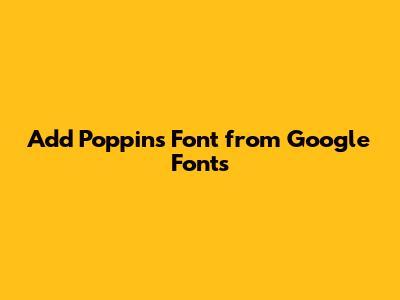
Hey guys! Ever wanted to give your website or design project that extra oomph? Well, using awesome fonts is a super easy way to do just that, and today, we're diving deep into how to import the Poppins font from Google Fonts. Poppins is a fantastic choice – it's clean, modern, and super versatile, making it perfect for everything from body text to big, bold headlines. Seriously, once you start using it, you'll wonder how you ever lived without it. This tutorial is designed to be super straightforward, so even if you're new to web design or just looking for a quick refresher, you'll be able to get Poppins up and running in no time. We'll cover the different ways you can bring this amazing font into your projects, whether you're working with web development, graphic design software, or even document creation. So grab your favorite beverage, get comfy, and let's make your text look absolutely stunning!
Understanding Google Fonts and Poppins
Alright, let's get down to business and talk about Google Fonts and Poppins. Google Fonts is this incredible free resource that offers a massive library of web-friendly fonts. What's so cool about it? Well, for starters, it's free, which is always a win, right? But more importantly, these fonts are optimized for the web, meaning they load quickly and look great across all sorts of devices and browsers. No more worrying about weird font rendering or slow loading times! Poppins itself is a geometric sans-serif typeface designed by the Indian Type Foundry. What makes Poppins stand out is its clean lines, balanced proportions, and friendly yet professional feel. It’s got a great range of weights, from thin and airy to bold and impactful, giving you tons of flexibility. Whether you need elegant headings or readable body text, Poppins has got your back. Its geometric construction gives it a modern and stylish edge, but it remains highly legible, which is crucial. Think about it – you want your audience to be able to read your message clearly, and Poppins absolutely delivers on that front. It’s the kind of font that can elevate your entire design without shouting for attention; it just works. So, when you decide to import the Poppins font from Google Fonts, you're not just adding a font; you're adding a well-crafted, highly functional, and aesthetically pleasing element to your project. It's a smart choice for anyone looking to enhance their visual communication, and we're stoked to show you how easy it is to integrate it.
Best Practices for Using Poppins
Now that you know how to import and use the Poppins font, let's wrap up with some best practices for using Poppins to make your designs truly shine. First off, consistency is key. Stick to the weights and styles you selected. While Poppins has a broad range, overuse of too many different weights on a single page can look chaotic. Aim for a clear hierarchy: maybe use a lighter weight for captions, regular for body text, and a bolder weight for headings. This makes your content easier to scan and digest. Secondly, pair Poppins wisely. While Poppins is versatile, pairing it with a completely different style of font can sometimes create a beautiful contrast. For example, you might pair Poppins (a sans-serif) with a serif font for quotes or specific accents. However, be careful not to use too many clashing font families. Two or three well-chosen fonts are usually plenty. Thirdly, mind the spacing. Pay attention to line-height (leading) and letter-spacing (kerning). Poppins generally has good default spacing, but you might need to adjust it. For instance, slightly increasing the line-height for body text can improve readability, especially at smaller sizes. Similarly, for all-caps headings, you might want to slightly increase the letter-spacing to prevent them from looking too dense. Fourth, use it appropriately. Poppins works exceptionally well for digital interfaces, branding, and modern web designs. It might feel a bit too contemporary or geometric for highly traditional or very formal documents, but for most applications, it’s a safe and stylish bet. Finally, optimize for web performance. As we discussed, only import the weights and styles you actually need. Don't load the entire Poppins family if you're only using three weights. This small optimization makes a significant difference in how quickly your website loads for your visitors. By following these tips, you'll be well on your way to using the Poppins font effectively and making your designs look polished, professional, and incredibly appealing. Happy designing, guys!
Ensuring Readability with Poppins
Readability is arguably the most crucial aspect of any text-based design, and ensuring readability with Poppins is straightforward thanks to its well-balanced design. Poppins is a geometric sans-serif, which means it has clean, simple letterforms that are generally easy to read across various sizes and resolutions. However, there are still a few things you can do to maximize its legibility. Firstly, choose the right weight. For body text, sticking to 'Regular' (400) or 'Medium' (500) is usually best. Very light weights (like 100 or 200) can become hard to read, especially on lower-resolution screens or in less-than-ideal lighting conditions. Conversely, using a very heavy weight (like 900) for large blocks of text can also strain the eyes. Reserve those heavier weights for headlines and impactful statements. Secondly, pay attention to font size. Google recommends a base font size of 16px for body text on the web, and Poppins works well at this size and slightly larger. Ensure your font size is adequate for your intended audience and viewing context. If people are squinting to read your content, it's too small! Thirdly, adjust line height (leading). This is the space between lines of text. A good rule of thumb for body text is to set the line-height to about 1.5 times the font size. So, if your font size is 16px, a line-height of 24px (16px * 1.5 = 24px) is a great starting point. Proper line height prevents the lines from feeling cramped and makes the text flow much more smoothly for the reader. Fourth, consider contrast. Ensure there's sufficient contrast between your text color and the background color. White text on a black background is high contrast, as is black text on a white background. Low contrast (like light grey text on a white background) can make reading very difficult. Finally, use sufficient letter spacing (kerning), especially for large type. While Poppins generally has good default kerning, sometimes all-caps headlines can benefit from a slight increase in letter-spacing (e.g., letter-spacing: 0.05em;) to give the letters a bit more breathing room. By focusing on these elements – appropriate weights, sizes, line spacing, contrast, and letter spacing – you can ensure that your use of the Poppins font is not just stylish, but also exceptionally readable for all your users.